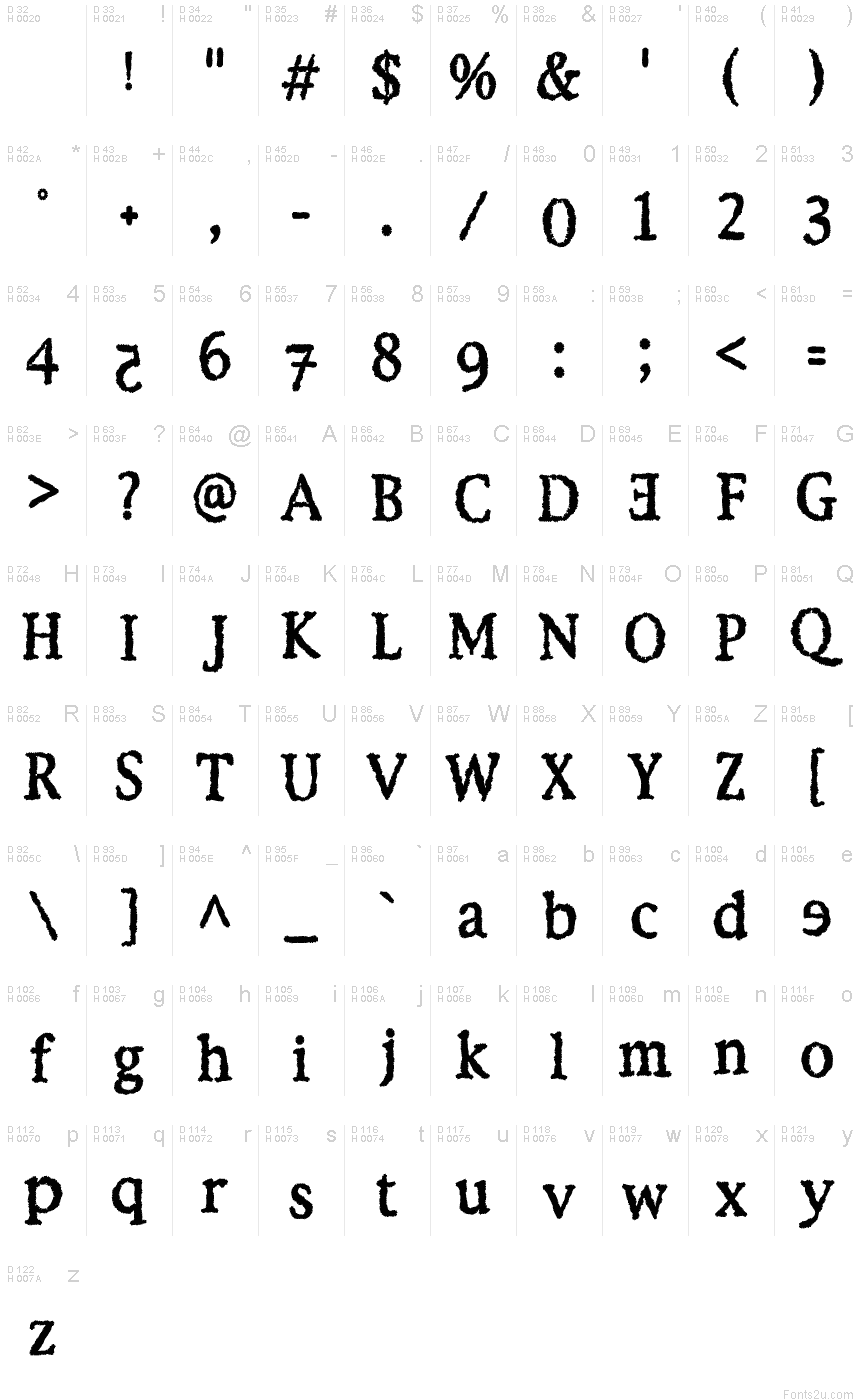
Ebola Kikwit font by Susan Townsend is a free eroded display typeface in the Ebola family that looks like it’s been scraped, shredded, and left to fester on the page. Thick, uneven strokes bristle with jagged edges, giving every word a raw, contaminated feel, as if it’s been stenciled in panic on a rough concrete wall. Despite the chaos, the letterforms hang together with a steady rhythm that keeps text readable at larger sizes.
Using Ebola Kikwit, you can push horror posters, outbreak-themed covers, survival-game titles, nightclub flyers, zines, and Halloween branding into truly unsettling territory. This free font works best when it’s big and bold, letting the spiky texture do the talking. Pair it with a clean, narrow sans serif for body copy to heighten the contrast between order and infection.